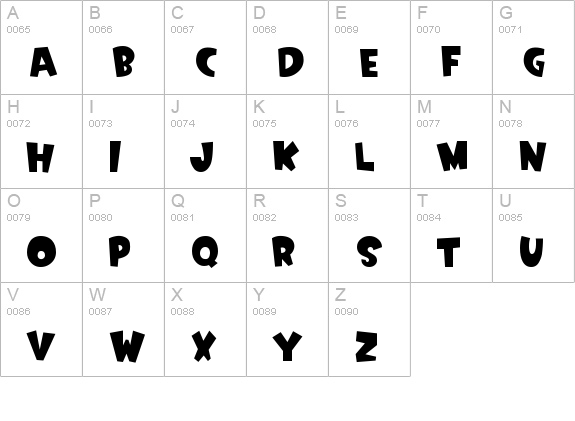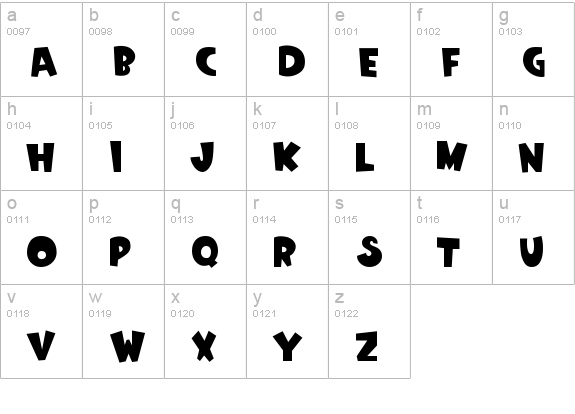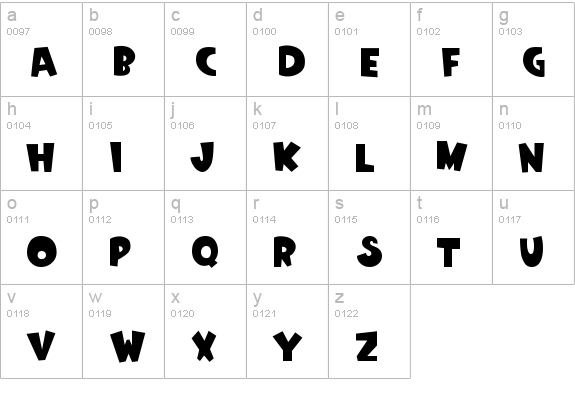
Soviet Toony Black Regular Font Details
Soviet Toony Black Regular is a maximum-weight, dramatic variant in the Soviet typeface family \xE2\x80\x94 well suited to maximum-impact headlines, posters, and packaging.